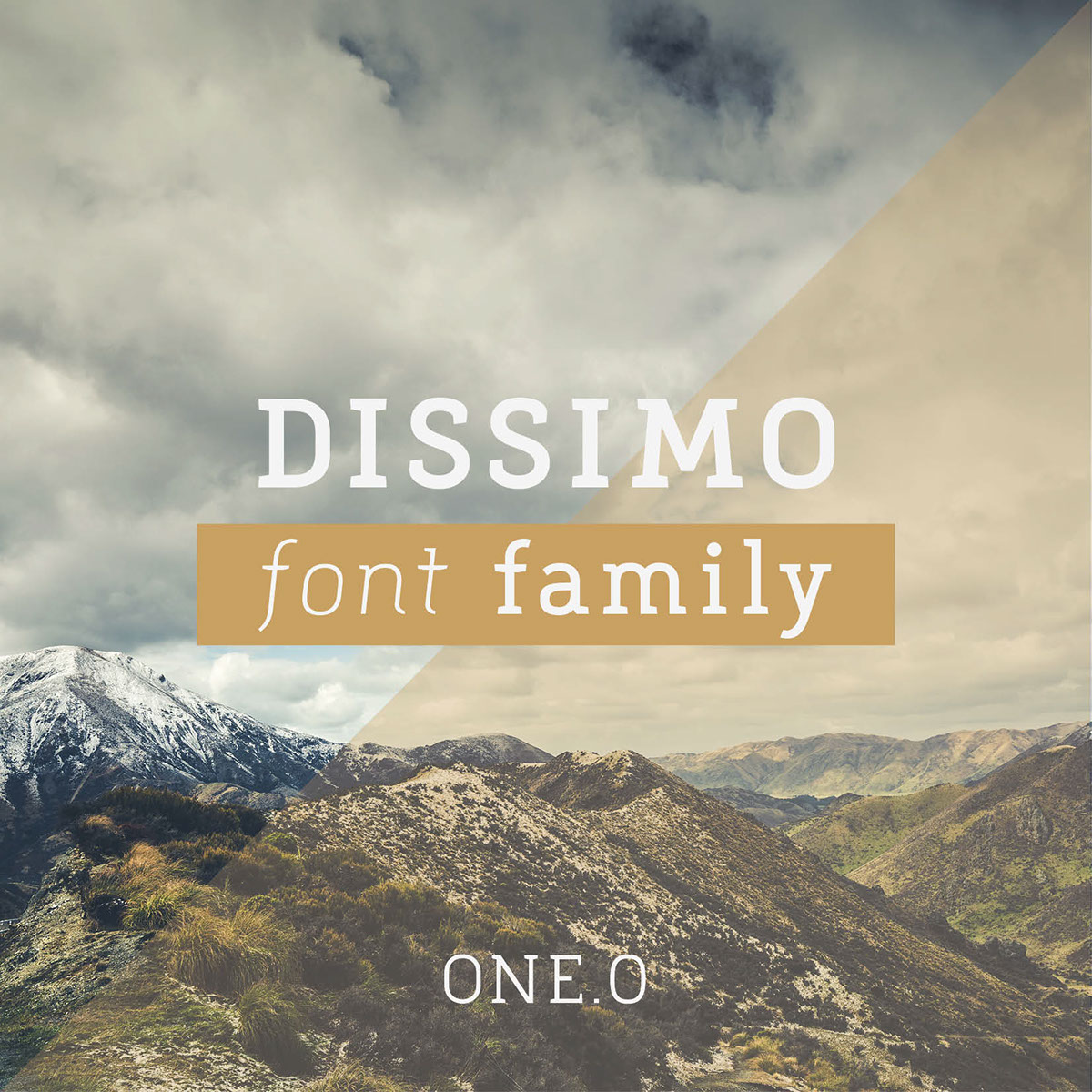
Dissimo Font Family
Dissimo Font is perfect for modern corporate branding, professional logo designs, tech company marketing, contemporary editorial layouts, business presentations, clean website interfaces, minimalist poster designs, sleek product packaging, sophisticated advertising campaigns, and polished digital content that requires crisp typographic precision and professional authority.
This font is exciting because it showcases exceptional geometric refinement and contemporary elegance that feels both powerful and accessible. The carefully engineered letterforms demonstrate superior craftsmanship with balanced proportions and clean lines, making it an ideal choice for brands seeking to communicate innovation, reliability, and modern professionalism with visual confidence.
The Dissimo Font family typically includes multiple weights ranging from light to bold, uppercase and lowercase characters, numerals, extensive punctuation, special symbols, multilingual support, and alternative glyphs that provide comprehensive typographic flexibility for international business applications.
Whether you're creating prestigious corporate identities, designing professional business materials, or developing sleek digital interfaces that demand clarity and modern sophistication, Dissimo Font Free Download offers the typographic foundation for powerful contemporary communication. Its refined character and professional versatility make every project feel more credible and expertly crafted, ensuring your designs effectively convey intelligence, stability, and modern excellence that builds trust with discerning audiences and establishes commanding brand presence across all media platforms.